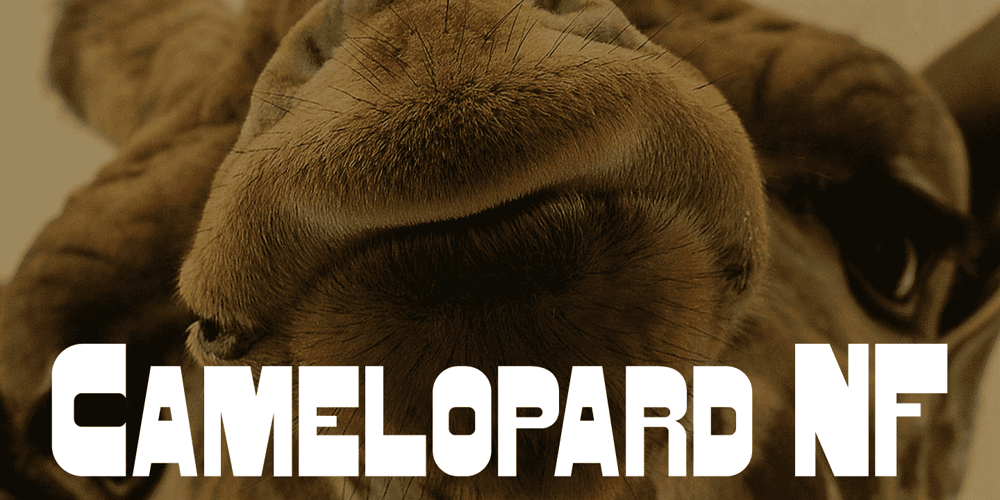
Camelopard NF
Camelopard NF Font Family was designed by Nick Curtis and published by Nick’s Fonts. Camelopard NF contains 1 styles and family package options. A wooden face, rather prosaically named Gothic Bold, from Hamilton’s 1889 specimen book provided the pattern for this bold and brassy face. Both versions support the Latin 1252, Central European 1250, Turkish 1254 and Baltic 1257 codepages.